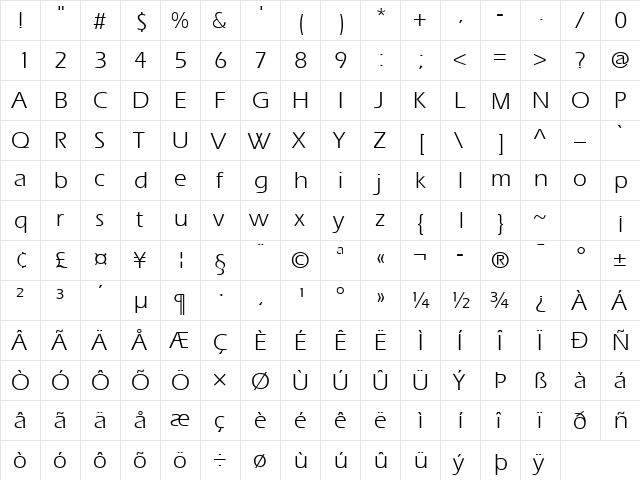
Aquiline Book Regular
Design Context for Aquiline Book Typeface
Aquiline Book takes a measured approach to typography — its balanced proportions and neutral character make it a reliable workhorse for both digital and print work.